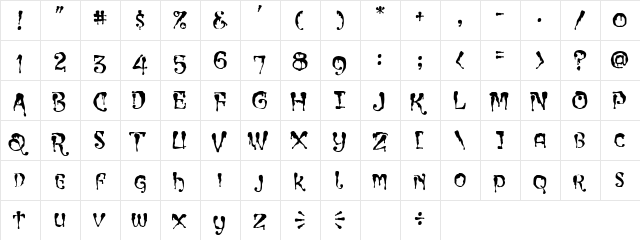
CC Incy Wincy Spider Medium
Design Context for CC Incy Wincy Spider Typeface
CC Incy Wincy Spider is a composed and adaptable typeface that performs quietly and consistently across a wide range of design contexts.